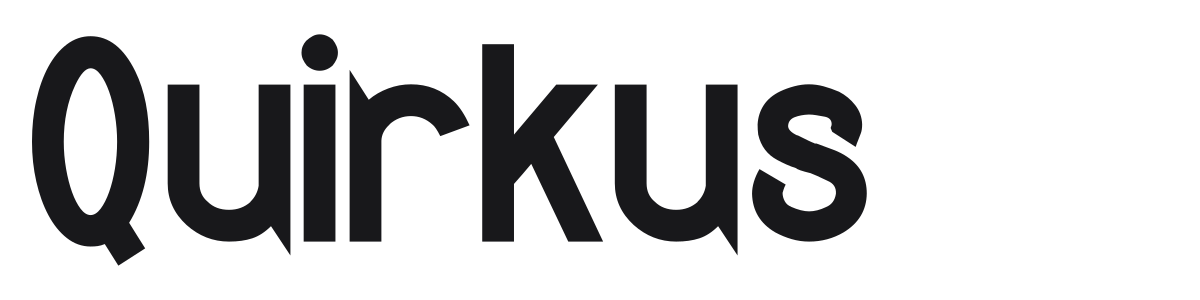
Quirkus
Quirkus is a bold, condensed geometric display face from Peter Wiegel with heavy letterforms that carry an unexpected playfulness in their proportions. The condensed structure keeps things tight and modern, but subtle quirks in the geometry give each character a personality that straight-laced industrial types don't have. Built for headlines and display use where you want weight and presence with a little offbeat charm.